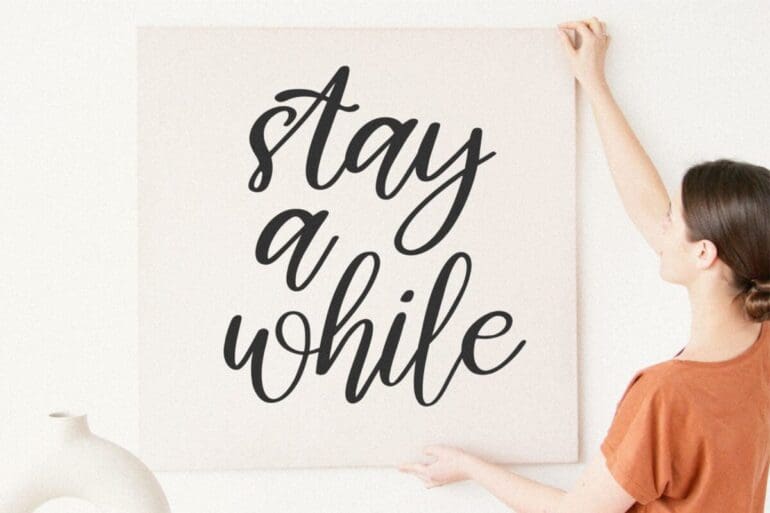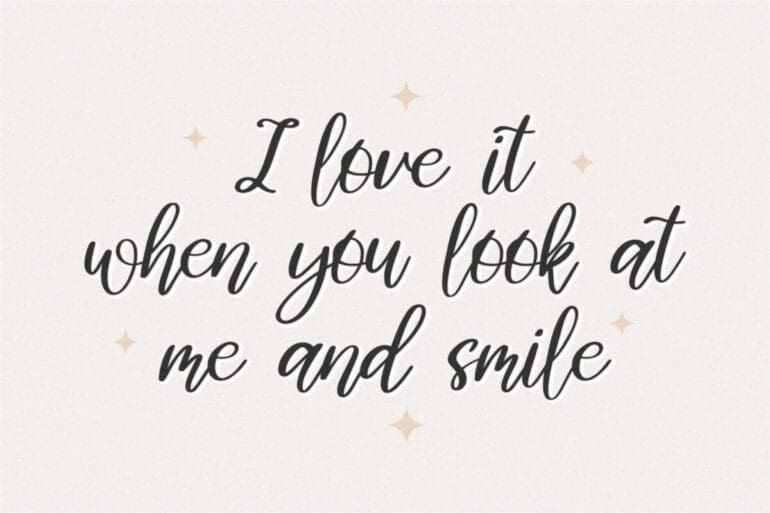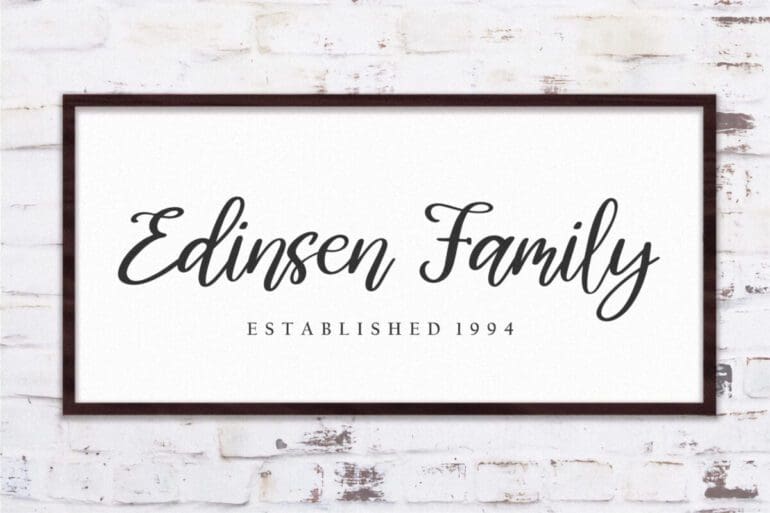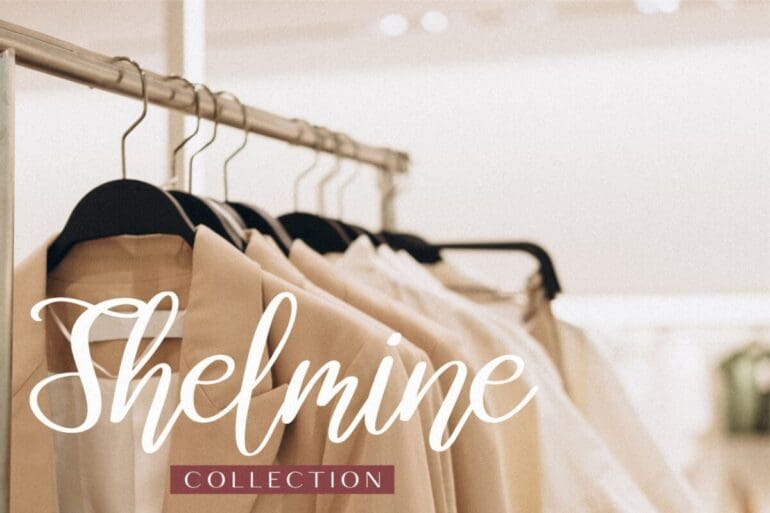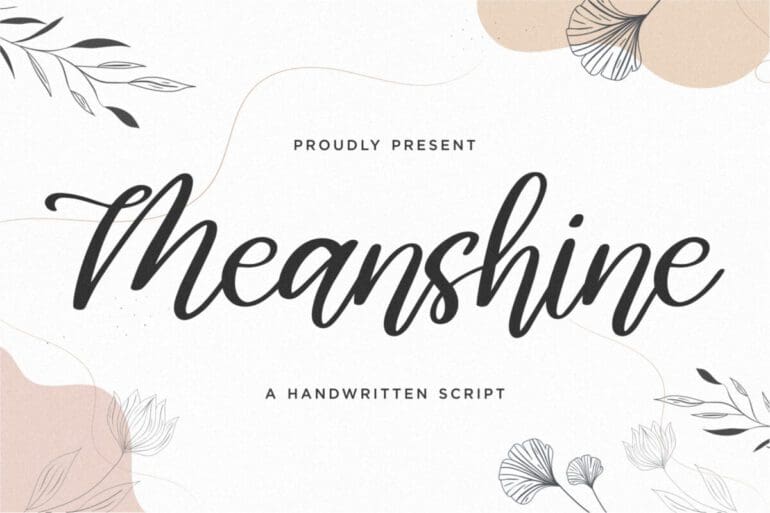
Meanshine Font
Meanshine is a lovely script font featuring charming, playful characters that seem to dance along the baseline. Add this font to your most creative ideas, and notice how it makes them stand out!